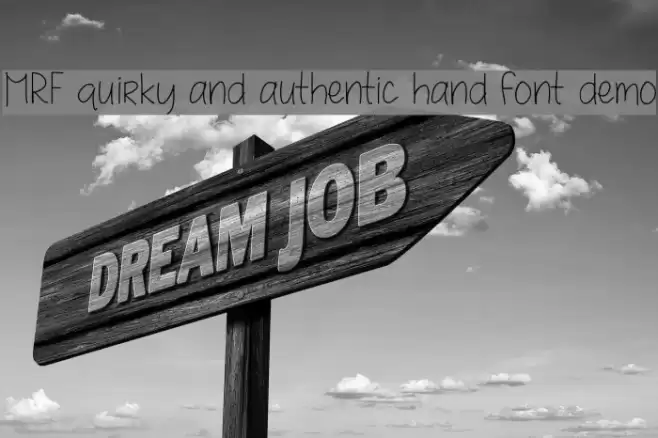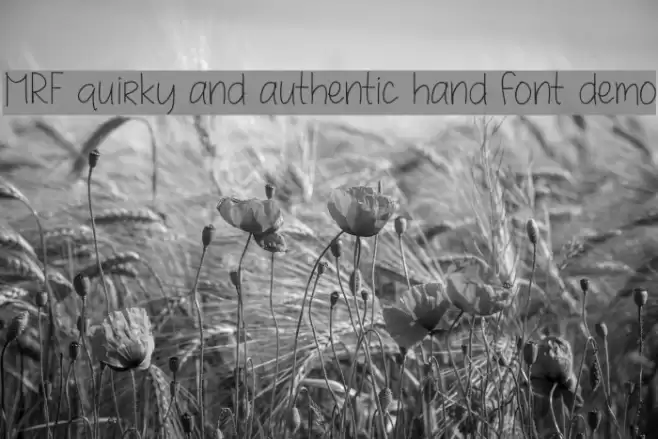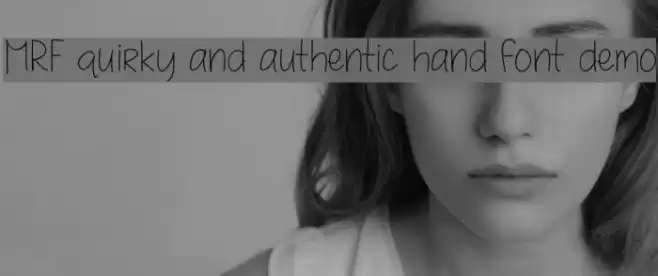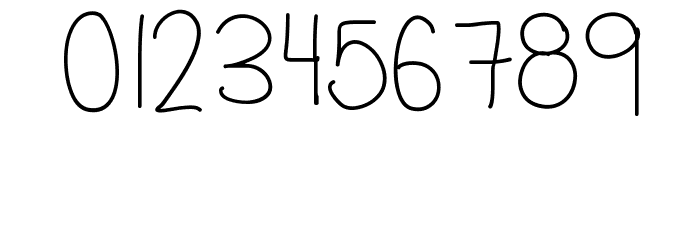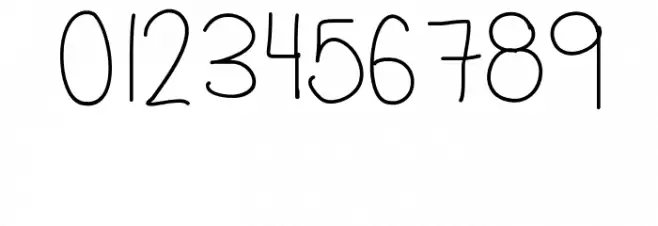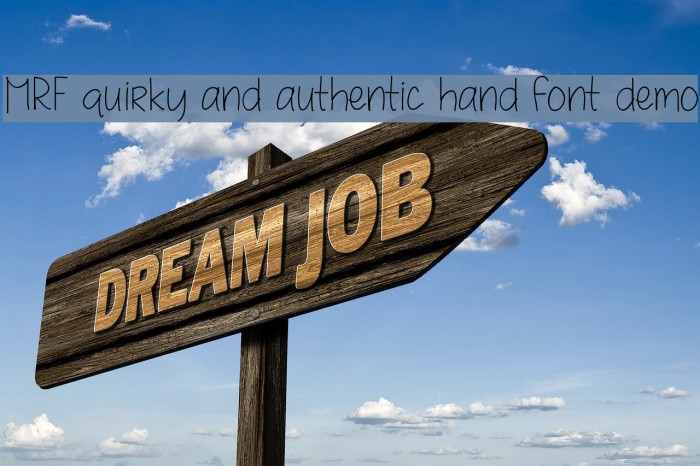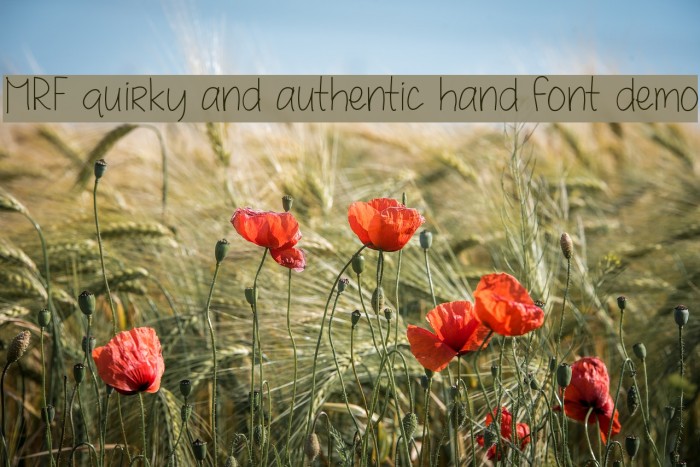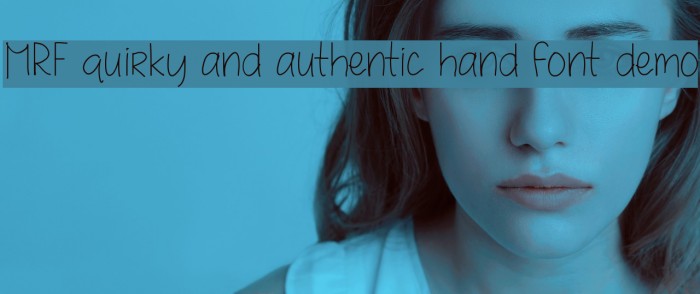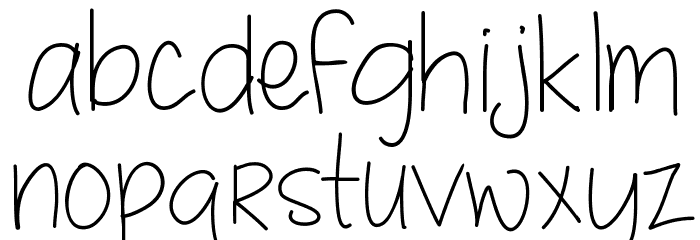
MRF quirky and authentic hand font demo Font
MRF quirky and authentic hand font demo Description
This font exudes a playful and whimsical charm, characterized by its hand-drawn appearance. The letters are tall and slender, with a slight irregularity that adds to its quirky and authentic feel. The strokes are consistent in thickness, giving it a uniform look while maintaining a casual, handwritten style. The uppercase and lowercase letters complement each other well, with rounded edges and a friendly demeanor. The numbers and special characters follow the same style, ensuring a cohesive look across all text elements.
A quirky, hand-drawn font with a playful and whimsical style from Handwritten fonts.
- Proposed Projects: Ideal for children's books, greeting cards, playful branding, and casual invitations.
- Use Case: Logos, Headlines, Informal Text